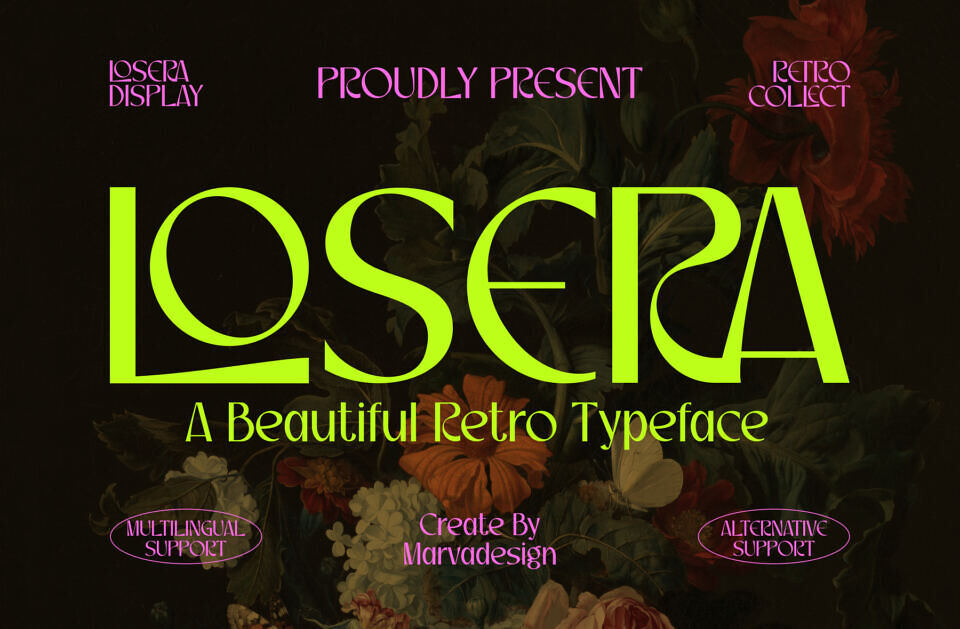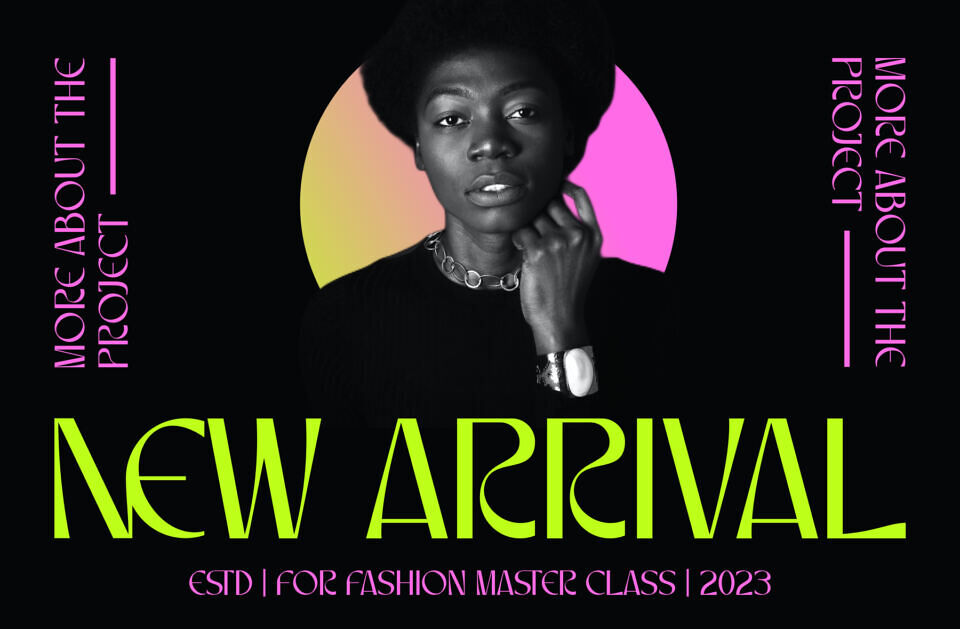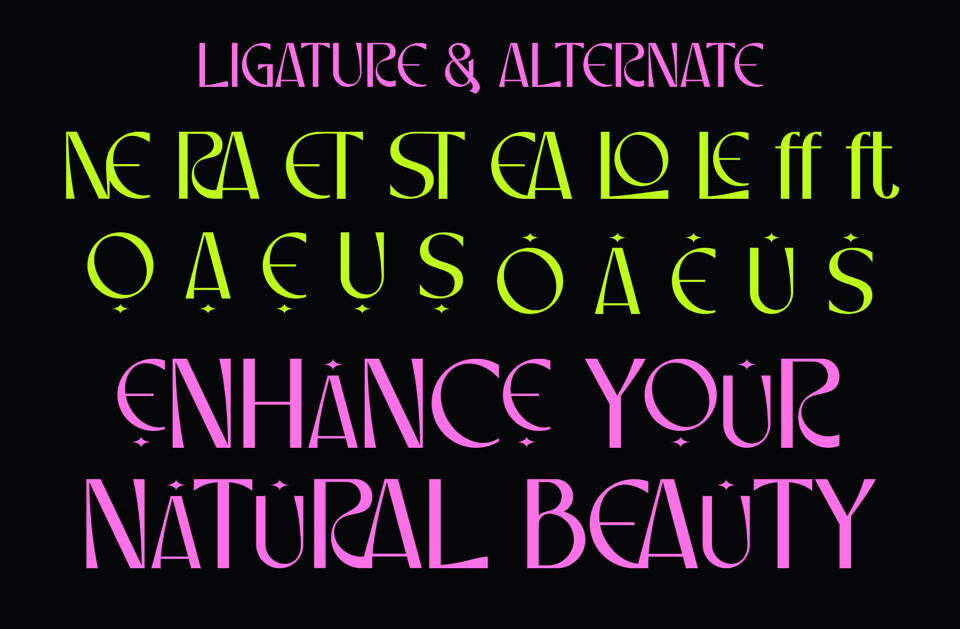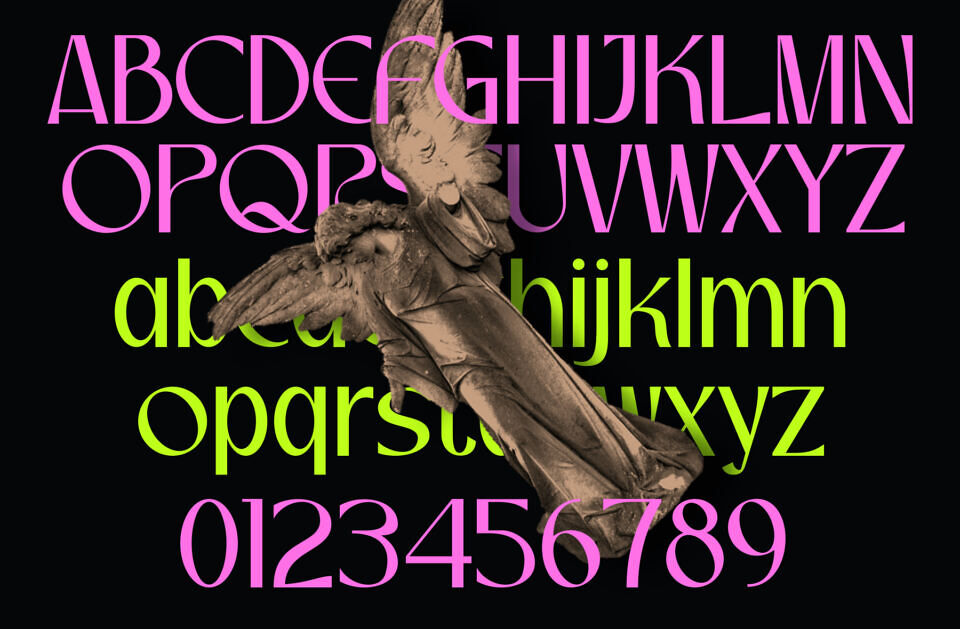
Losera is a lovely retro font that brings a touch of nostalgia to your text. With its charming curves and stylish letters, it adds a vintage flair to any project. Perfect for giving your designs a classic yet trendy vibe.